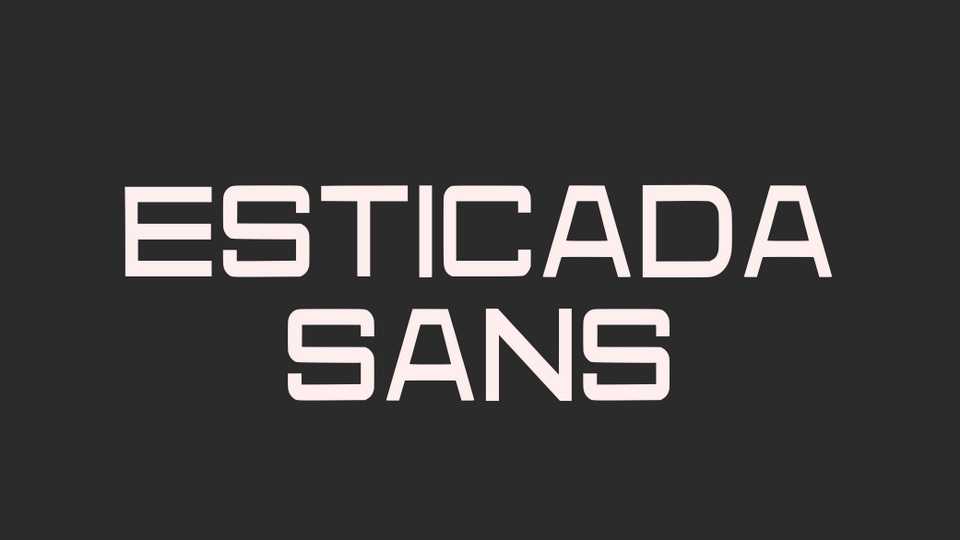
Download Esticada Sans font, a bold, variable-width display typeface. With its modern look Esticada font is perfect for posters, headlines, editorial use.
Designer: Edson Silva